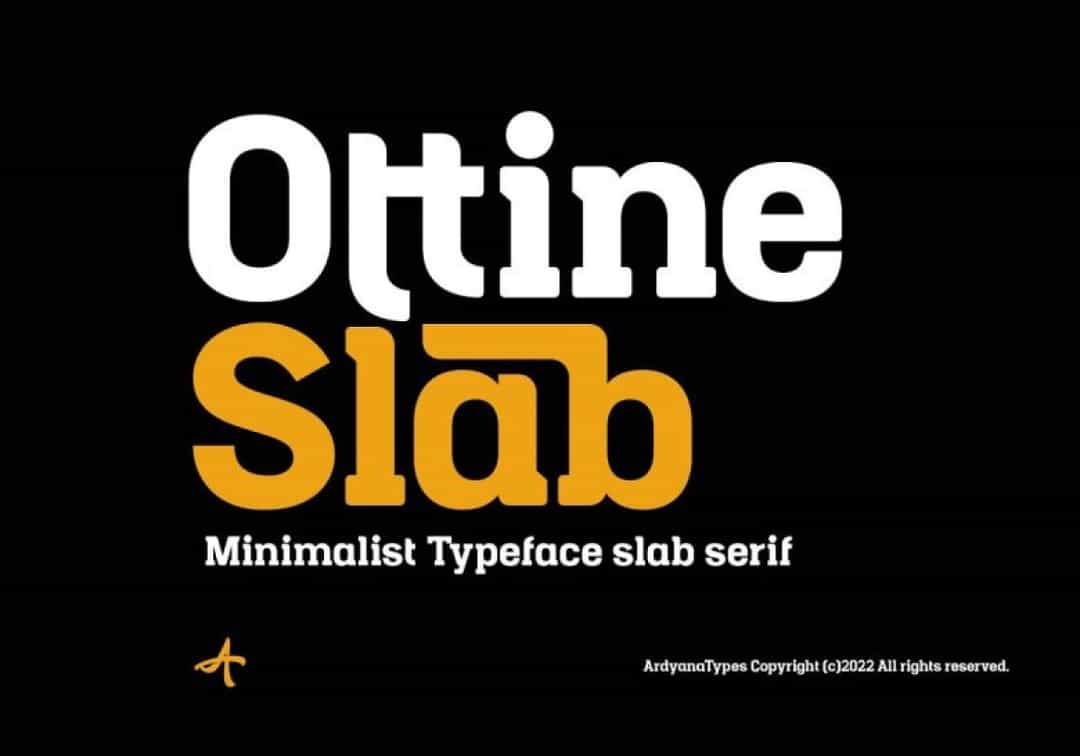
Ottine Slab Font has an attractive slab serif style reminiscent of 1980s typeface, yet original and sophisticated enough to leave an impressive impression on any project. Equipped with different languages for ease of use across a variety of projects.